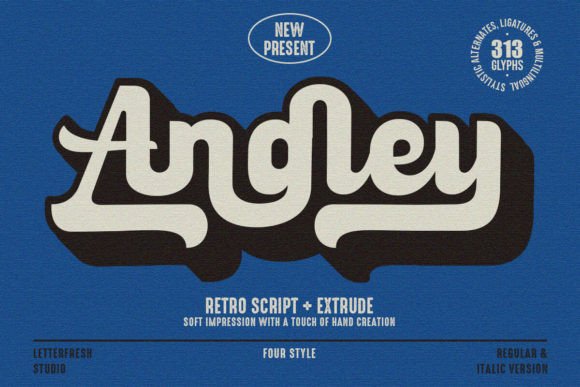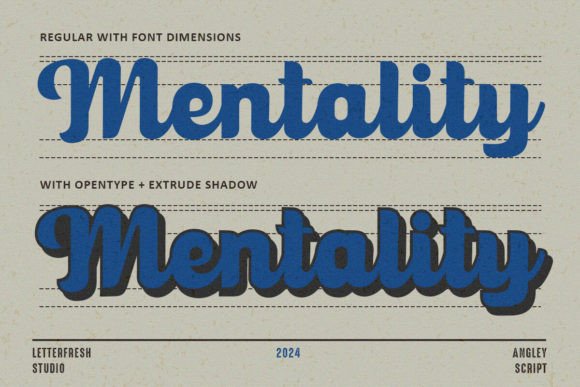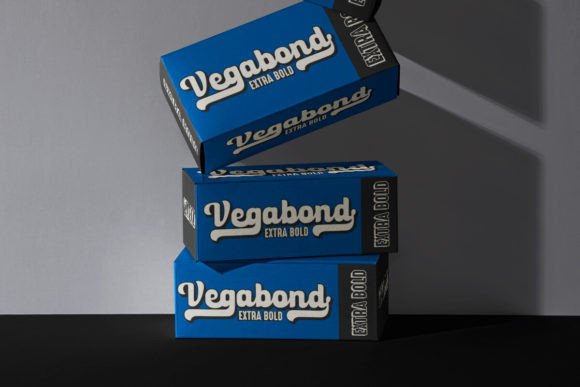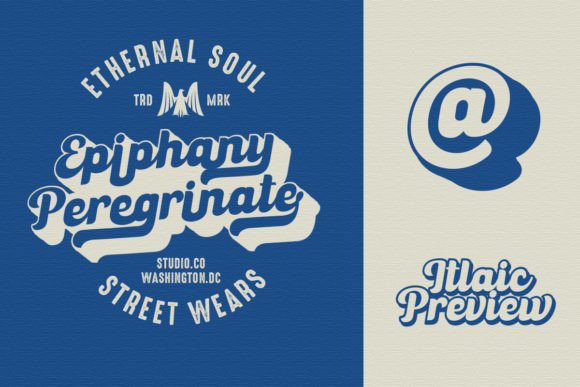
Angley Font
About the Angley Font
Experience the unique personality of Angley Font, a font designed for impact. Angley is a bold retro script that will take you back to the 60s. This typeface has an extrude version so you can create a retro effect font easily. This font is very suitable for the application, especially on logos, and various other formal forms such as invitations, labels, logos, magazines, books, greeting/wedding cards, packaging, fashion, makeup, stationery, novels, labels, or advertising purposes.
Angley’s bold retro style is ideal for headlines, short text blocks on posters and packaging, and branding applications requiring a vintage feel. Its strong personality works well for projects emphasizing nostalgia or a 60s aesthetic. However, its highly decorative nature makes it unsuitable for body text or UI elements where legibility is paramount. Extended use could lead to visual fatigue.
Pairing Angley effectively requires a complementary typeface to balance its boldness. A clean sans-serif like Helvetica or a geometric sans-serif would provide a modern counterpoint, maintaining readability while letting Angley shine as a statement element. For a softer contrast, consider pairing it with a subtle serif like Garamond or a delicate script for a layered, vintage look, but ensure sufficient contrast to avoid visual clutter.
Angley projects a confident, retro-inspired personality, best suited for brands and projects that value a bold and nostalgic aesthetic. Think vintage fashion, handcrafted goods, or music-related projects needing a strong visual identity. Avoid using it where a clean, minimalist look is desired.